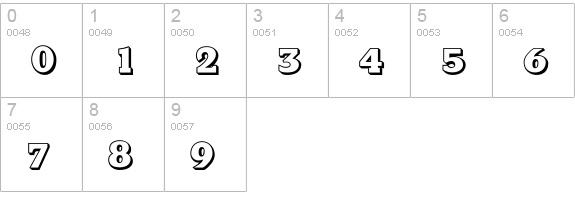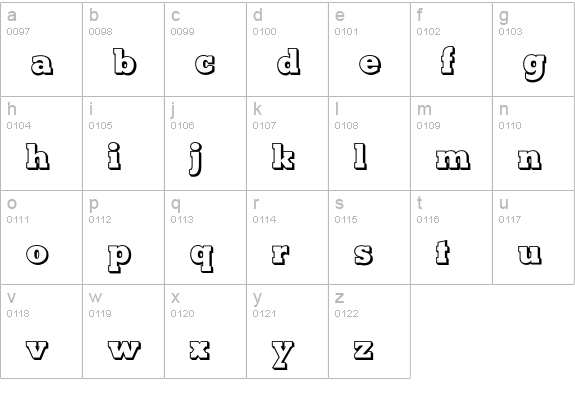
OPTIVatican Font Details
Introducing OPTIVatican font, a sleek and modern typeface that exudes sophistication and elegance. With its clean lines and stylish curves, OPTIVatican is perfect for a wide range of design projects, from branding to editorial layouts. This versatile font is sure to make a statement and elevate any design it is used in. The best part? OPTIVatican is absolutely free to download at FontsMarket.com. That's right, you can add this premium quality font to your collection at no cost. So, don't miss out on the opportunity to enhance your designs with the timeless appeal of OPTIVatican. Download it today and let your creativity soar!